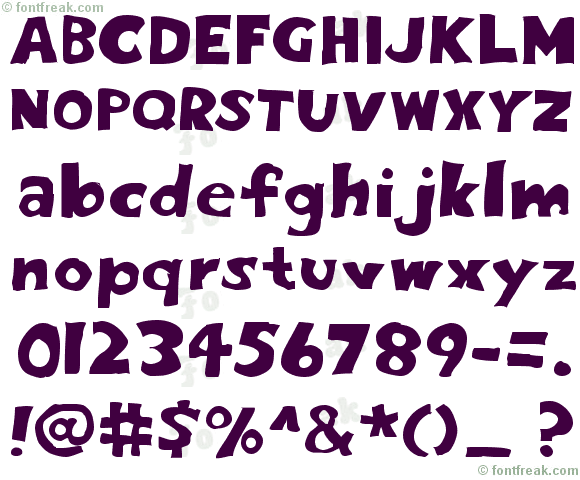
Eighty Percent Caps
Eighty Percent
Eighty Percent Caps Outline
Eighty Percent Outline
About Eighty Percent
Eighty Percent by Tepid Monkey Fonts is a striking display font that brings a playful yet bold character to any design project. This unique font falls into the decorative category, characterized by its whimsical letterforms that instantly capture attention. The stroke weight is varied, giving it a dynamic feel, while the uneven outlines create an engaging visual texture. The spacing is generous, allowing for easy readability, which is essential for any design work.
This font is ideal for a variety of creative applications. It can be effectively used for restaurant menus, where its fun and quirky style can enhance the dining experience. Additionally, it works wonderfully for movie posters, providing an eye-catching title that stands out in crowded visual environments. Wedding invitations can also benefit from the charm of Eighty Percent, adding a unique touch that reflects the personality of the couple. Other suitable use cases include social media graphics and promotional materials for small businesses looking to convey a friendly, approachable brand image.
What sets the Eighty Percent font apart is its distinctive style that balances fun and functionality. It captures attention while remaining versatile across various applications. Its unique design offers an opportunity for creators to express individuality and creativity, making it a must-have for those wanting to make a statement. For those interested in incorporating this standout font into their designs, the Eighty Percent font free download is readily available, inviting a new wave of creativity.